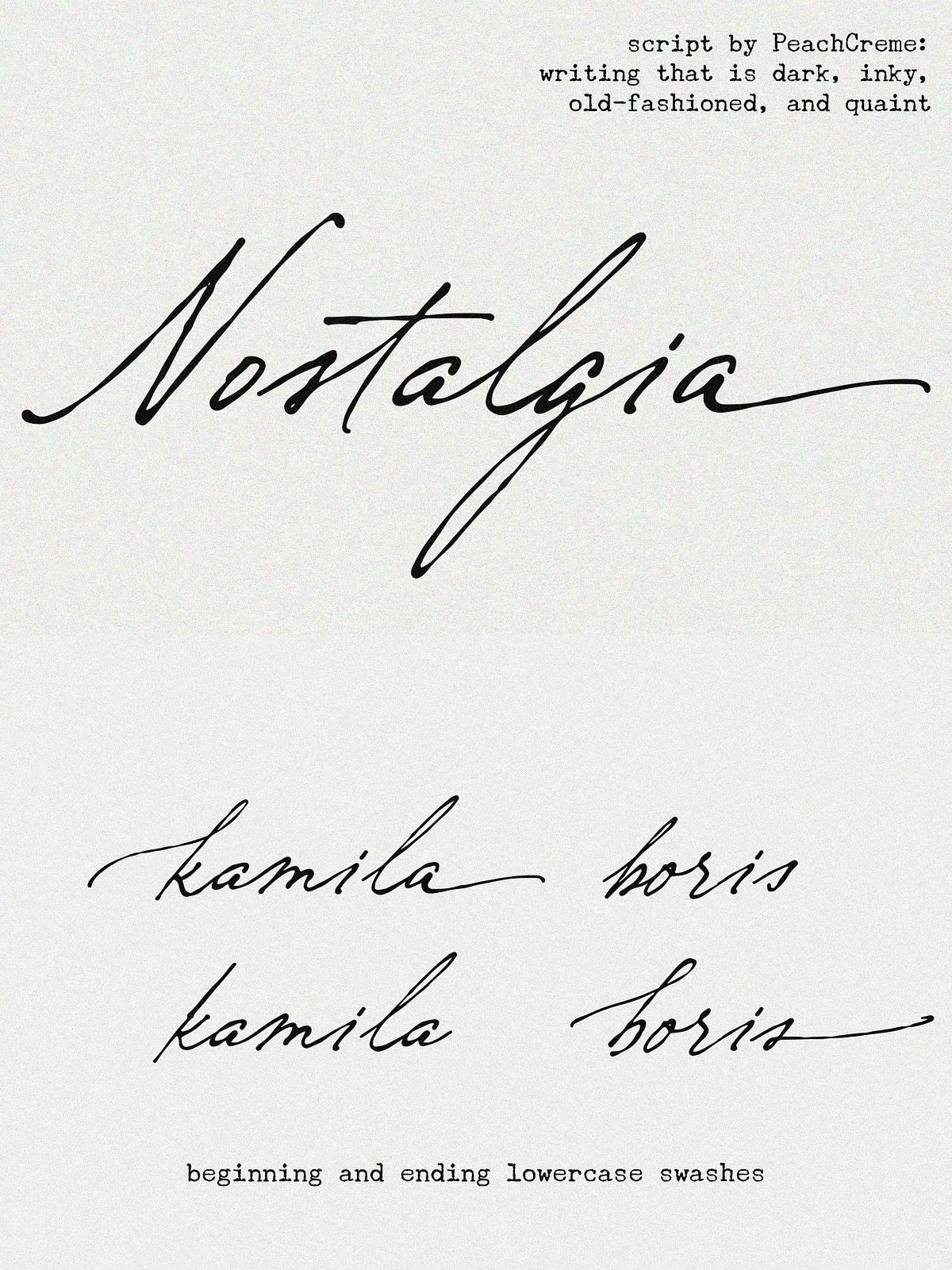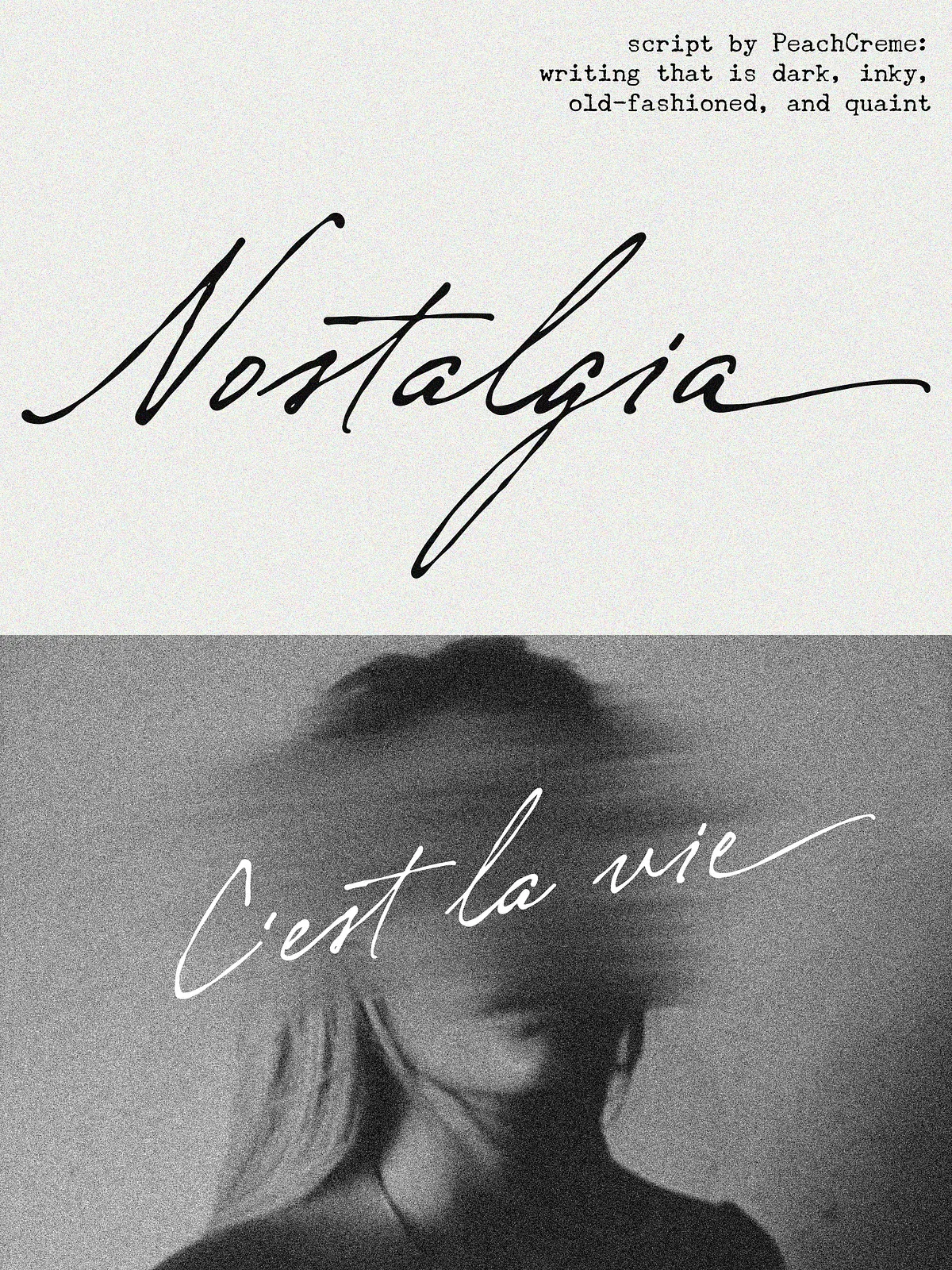
Nostalgia is a beautifully crafted vintage-style font that captures the essence of classic inky handwriting with a natural, flowing rhythm. Designed to be both visually striking and highly legible, this font offers a timeless aesthetic that suits a wide variety of creative projects. Whether you are designing wedding stationery, crafting Instagram quotes, developing contemporary logos, or enhancing packaging and websites, Nostalgia provides a versatile and elegant typographic solution.
Distinctive Features and Design Inspiration
The inspiration behind Nostalgia comes from traditional handwriting styles characterized by fluid strokes and expressive swashes. This font features fantastic starting and ending lowercase swashes that add a graceful, handcrafted touch to your text. The dark vintage style evokes a sense of history and authenticity, making it perfect for projects that require a warm, nostalgic feel.
Despite its decorative qualities, Nostalgia maintains excellent readability. It includes all the essential characters—letters, numbers, and punctuation—ensuring that your text remains clear and accessible across different mediums and sizes. This balance between style and function makes it a reliable choice for both display and body text.
Versatile Applications Across Creative Projects
Nostalgia’s adaptability allows it to shine in numerous design contexts. Some of the most popular uses include:
- Wedding Stationery: Create elegant invitations, save-the-dates, and thank-you cards that convey romance and timeless beauty.
- Social Media Content: Design captivating Instagram quotes and posts that stand out with a handcrafted, vintage vibe.
- Branding and Logos: Develop contemporary logos that combine classic charm with modern sophistication.
- Packaging Design: Enhance product labels and packaging with a font that communicates quality and tradition.
- Websites and Digital Media: Use Nostalgia to add personality and warmth to your online presence while maintaining readability.
Designed for Creative Professionals and Enthusiasts
Created by Gulya, Nostalgia is a thoughtfully designed font that meets the needs of both professional designers and creative enthusiasts. Its hand-drawn characters provide an authentic, personal touch that elevates your work and helps you communicate your message with style and emotion. The font’s traditional styling combined with modern usability makes it a valuable asset for anyone looking to add a handcrafted feel to their projects.
Why Choose Nostalgia?
Choosing Nostalgia means embracing a font that offers:
- Timeless Vintage Appeal: A dark, classic style that evokes warmth and authenticity.
- Elegant Handwritten Swashes: Beautifully crafted starting and ending swashes that enhance the flow of your text.
- Excellent Readability: Clear and simple characters suitable for various sizes and uses.
- Versatility: Perfect for weddings, social media, branding, packaging, and more.